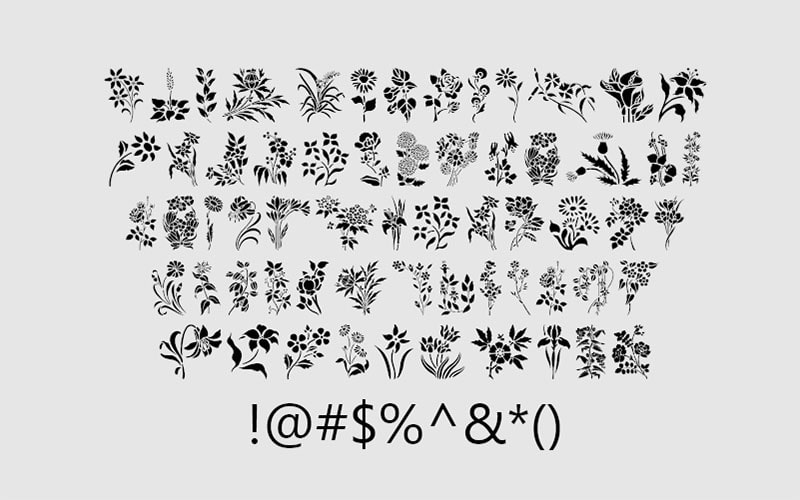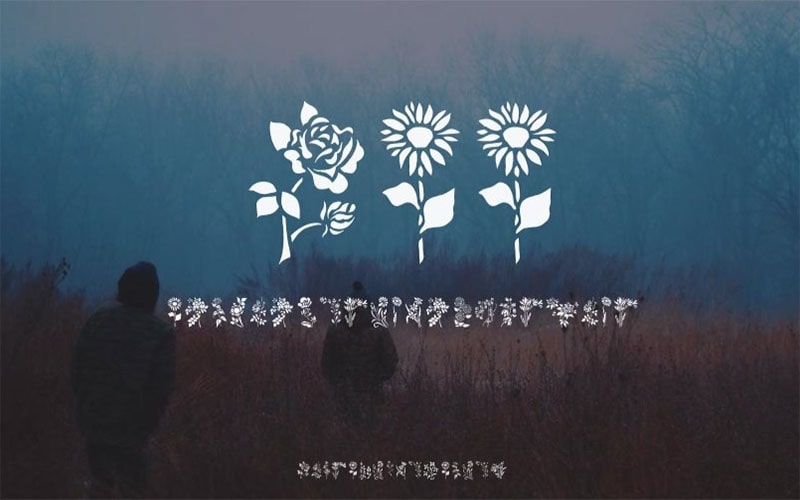
HFF Floral Stencil Font is a unique and artistic typeface created by the designer, Have Fun with Fonts (HFF). This font captures the essence of floral beauty and combines it with the structured appeal of stencil design.
HFF, known for their creative and playful approach to typography, aimed to bring a touch of nature into their font while maintaining the practical benefits of a stencil typeface.
It is characterized by its intricate floral patterns and stencil cuts. Each character is adorned with detailed floral motifs, giving the font a delicate and ornamental look.
Includes a complete set of uppercase and lowercase letters, numerals, punctuation, and special characters. It supports multiple languages, enhancing its versatility.
The stencil design ensures that the characters remain easy to cut out and reproduce, making it practical for various applications. it’s a celebration of floral beauty and artistic design.